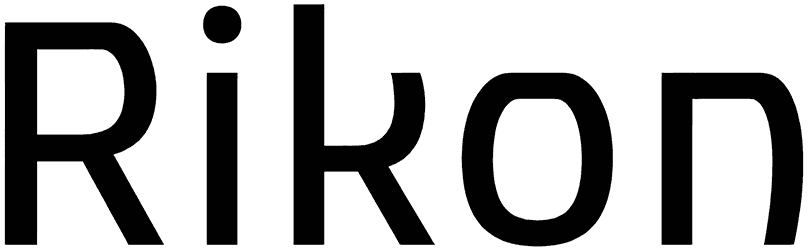
Rikon Font
It’s not really surprising that modest and modern visuals are always popular, and you can count on a unique one like the Rikon font to give such a style to your project and leave a lasting impact on your visitors.
This unique sans-serif font has the potential to give a bold and minimal form to your words. It doesn’t have most punctuation marks, but still, it can be a part of your cool design.